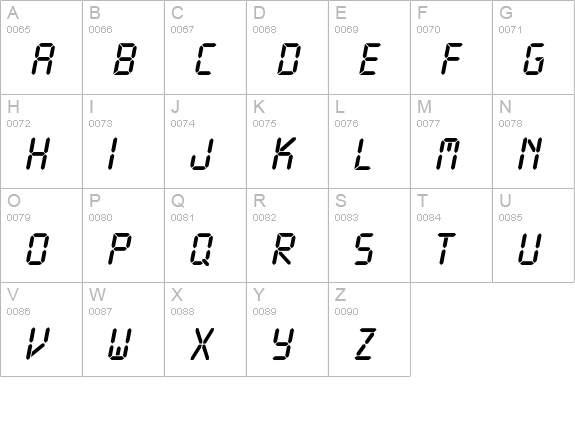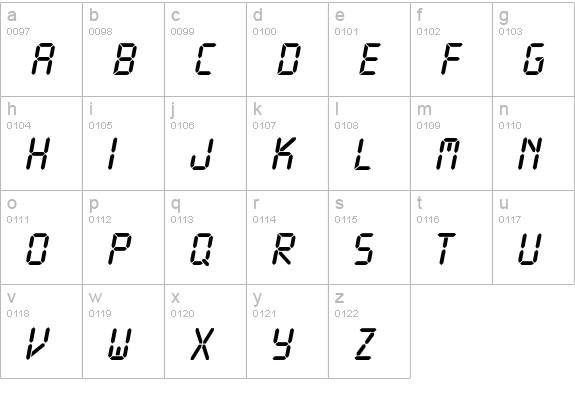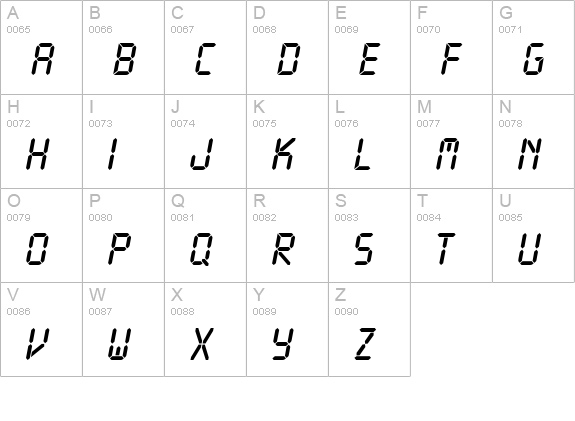
OPTICalculator Font Details
Introducing OPTICalculator font, a sleek and modern typeface designed to elevate your designs to new heights. With its clean lines and sharp edges, OPTICalculator is perfect for adding a touch of sophistication to any project. Whether you're creating a logo, poster, or website, this versatile font is sure to make a lasting impression. But the best part? OPTICalculator is completely free to download at FontsMarket.com! That's right, you can access this premium font without breaking the bank. So why wait? Enhance your designs today with OPTICalculator and take your creativity to the next level.